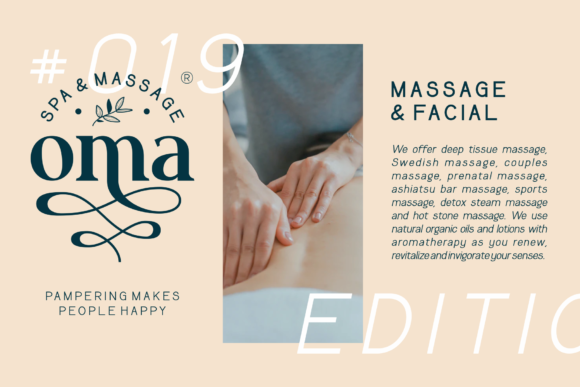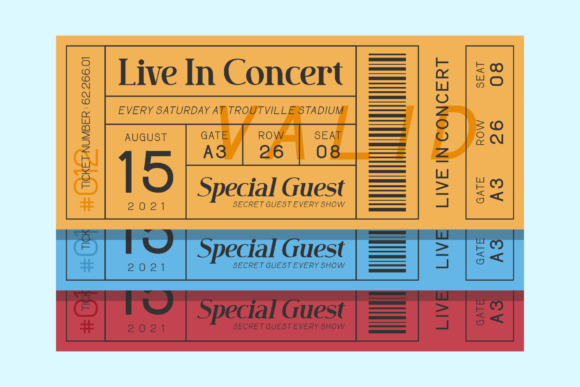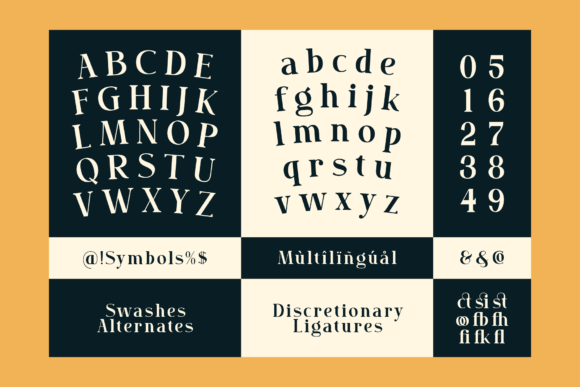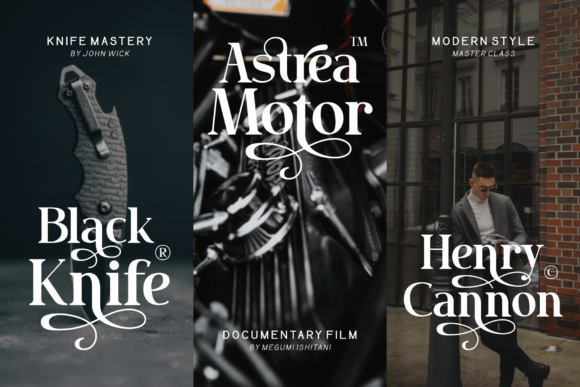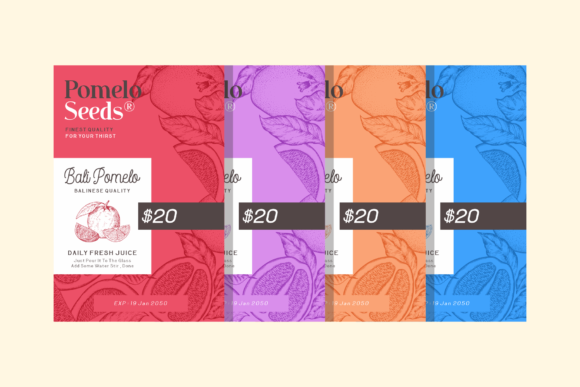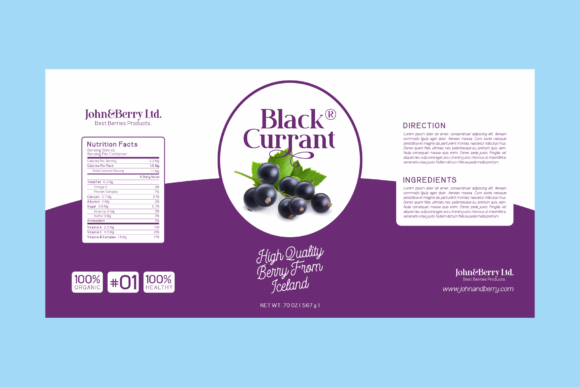
The Ultimate Font for Creative Projects: A Deep Dive into Bilgosia
I’ll never forget the time I was working on a project for a client who wanted a font that was both trendy and timeless. I spent hours scouring the internet for the perfect one, but nothing seemed quite right. That was until I stumbled upon Bilgosia, a lovely, trendy, and cool trio font that has become a staple in my font library. In this article, I’ll share my experience with Bilgosia, its features, and how to make the most of it in your creative projects.
An Honest Review of Bilgosia
Bilgosia is more than just a font – it’s a versatile tool that can elevate any design. Here’s what I love about it:
• ✨ Trendy and Timeless: Bilgosia has a unique blend of modern and classic elements that make it perfect for a wide range of projects.
• ✅ PUA Encoded: The font is PUA encoded, which means you can access all glyphs and swashes with ease, giving you endless creative possibilities.
• 🌈 Trio Font: Bilgosia comes in three font styles: serif, script, and sans serif, making it a versatile addition to your font library.
While Bilgosia is an amazing font, it’s not without its quirks. Here are a few things to keep in mind:
• 🤔 Learning Curve: With so many glyphs and swashes available, it may take some time to get familiar with the font’s features.
• ⚠️ Compatibility Issues: As with any font, there may be compatibility issues with certain software or platforms, so be sure to test it thoroughly.
The Story Behind Bilgosia
Bilgosia was designed by a team of typographers who wanted to create a font that was both trendy and timeless. Inspired by the beauty of handwritten scripts and the elegance of serif fonts, Bilgosia is a true masterpiece of typography. Whether you’re a designer, crafter, or creative hobbyist, Bilgosia is sure to become a favorite in your font library.
What is Bilgosia? Bilgosia is a lovely, trendy, and cool trio font (serif, script, and sans serif) perfect for creative projects.
Is Bilgosia PUA encoded? Yes, Bilgosia is PUA encoded, which means you can access all glyphs and swashes with ease.